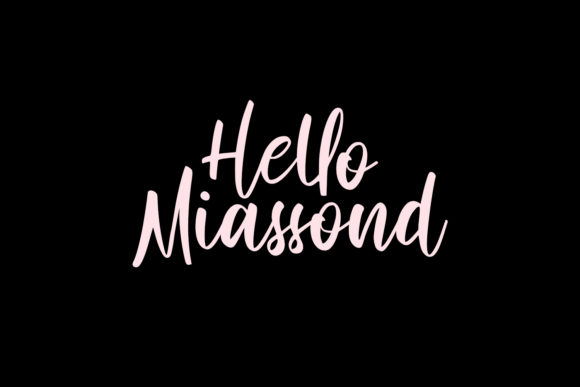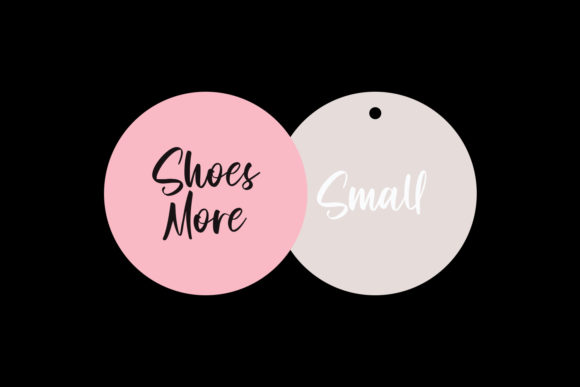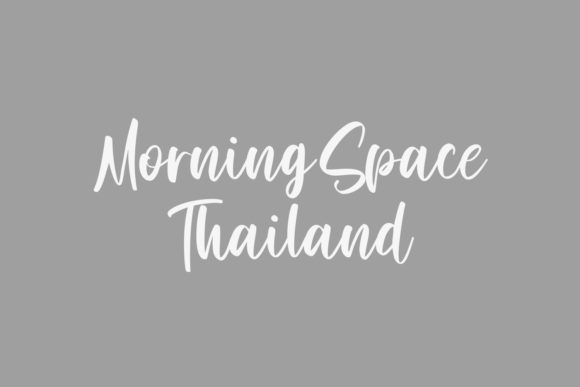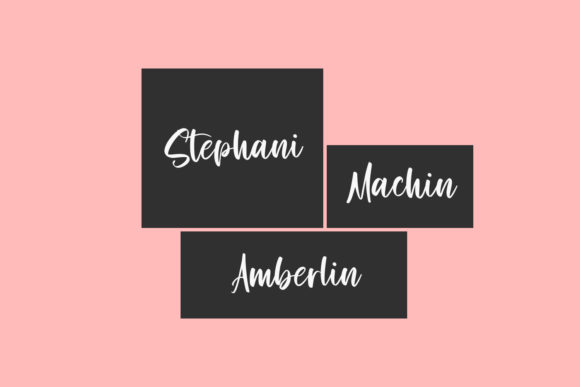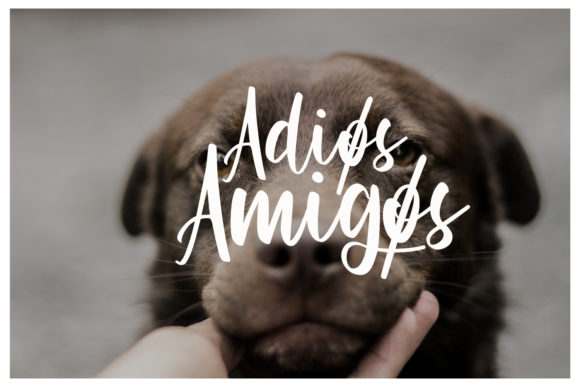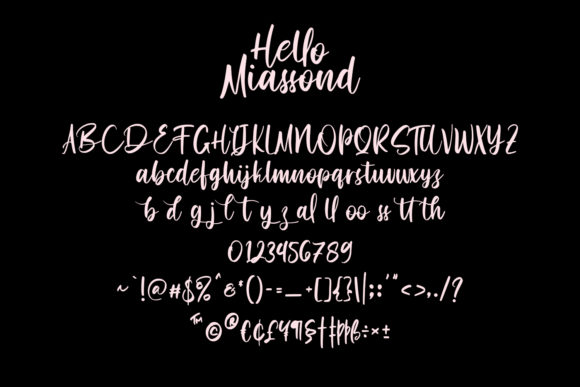
Hello Miassond Font
About Hello Miassond Font
Hello Miassond is inspired by classic typography and brings its own unique style to any design project. It features an incredibly classic style, while still keeping a friendly feel. Hello Miassond is the perfect font for making original and outstanding designs.